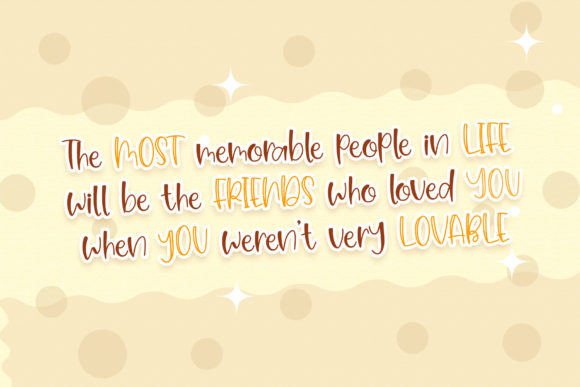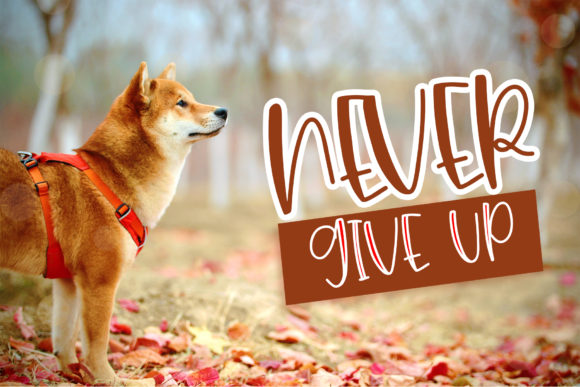
Cutie Brown Font
db-ku.com - Script & Handwritten -- Cutie Brown is a fun handwritten font. Get creative with its childlike playfulness, and use it to brighten up any kids and school project!